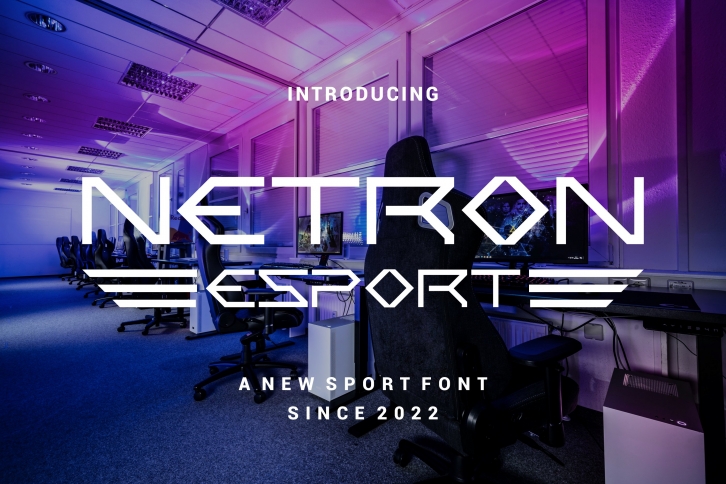
Netron is a beautiful font that was designed by logologo. It's a great choice for designers and creatives who need such a font. It was released on September 8, 2022 and the file size is 8.58 MB. Netron may give a more youthful, expressive and casual look to your project. It is a very beautiful, refined, elegant, and high-quality font.